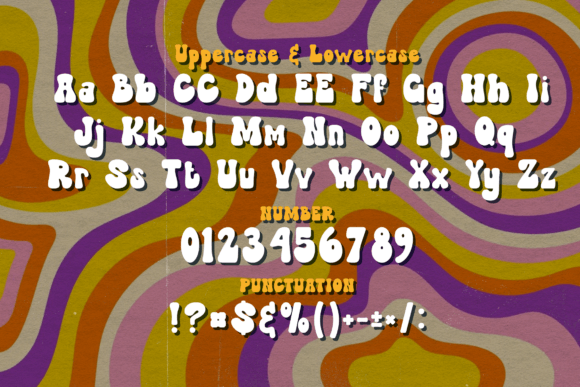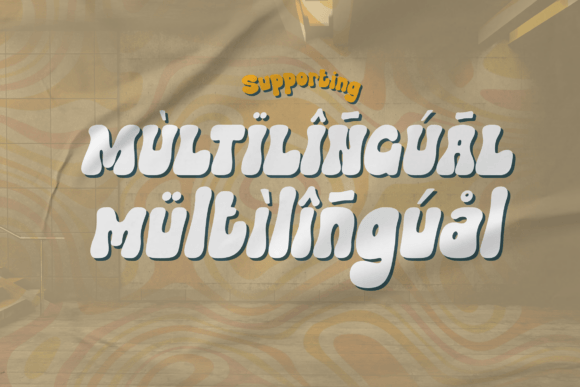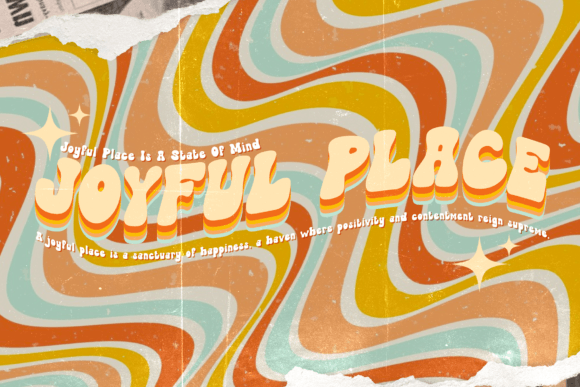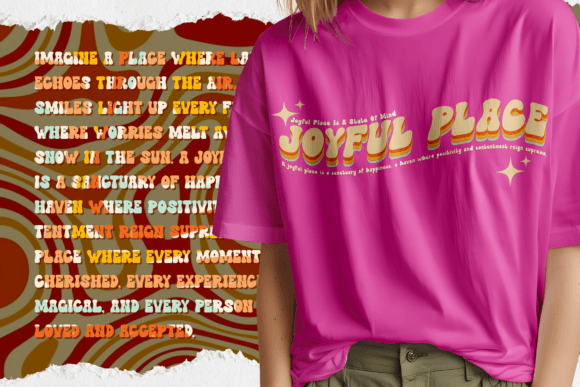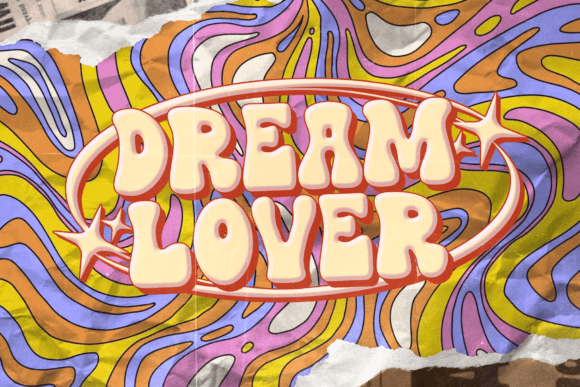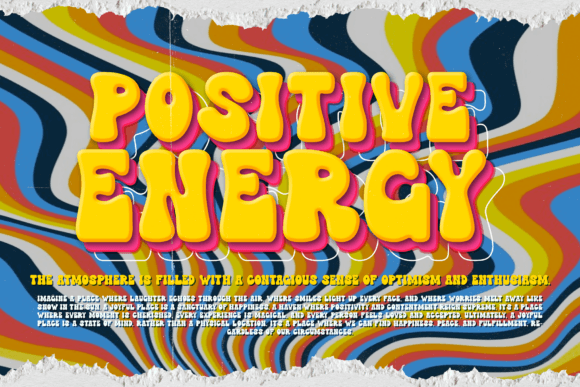
Who else remembers those late-night design sessions spent browsing through fonts, searching for that perfect match to bring a project to life? You’re probably thinking, “Ah, yes! That time I spent hours trying to find the perfect font to make my design stand out!” Well, we’re here to take you back to those thrilling moments with the return of the 2000s’ funky charm – the Chuckle Freaky Font.
This playful font brings together the best of both worlds: the carefree spirit of graffiti and the bold, eye-catching designs that defined the Y2K era. Its bold colors, wavy lines, and retro flair make it an instant attention-grabber. For designers looking to add a bit of whimsy and personality to their work, the Chuckle Freaky Font is a treasure trove of inspiration.
Key Features of “Chuckle Freaky Font”
- Font Family: A unique, hand-drawn font with quirky and playful characteristics, perfect for adding a touch of whimsy to designs.
- Unique Characteristics: Features a range of quirky and expressive characters, including alternate glyphs, ligatures, and swashes, allowing designers to add a touch of personality to their work.
Chuckle Freaky Font Review
Overall, I’m quite impressed with the Chuckle Freaky Font! It’s a quirky, playful font that’s perfect for adding some personality to your designs.
- ✨ Unique character: The font’s eccentric style sets it apart from more traditional fonts.
- ✨ Versatility: It works well for headings, titles, and even body text in the right contexts.
- ✨ Fun to work with: The font’s irregularities make it a joy to experiment with in design projects.
- ⚠️ Readability issues: The font’s unusual style can make it difficult to read, especially in large blocks of text.
- ⚠️ Limited use cases: While it’s perfect for playful, creative projects, it may not be the best choice for more formal or professional designs.
Overall, I’d recommend the Chuckle Freaky Font for designers looking to add some whimsy to their projects. Just be mindful of its limitations and use it in contexts where its unique style will shine.
For the best results, use “Chuckle Freaky Font” for titles, headings, and emphasis.
It’s ideal for creating playful, attention-grabbing designs, such as social media graphics, posters, and flyers.
Experiment with different font sizes, colors, and styles to create a unique and eye-catching look.